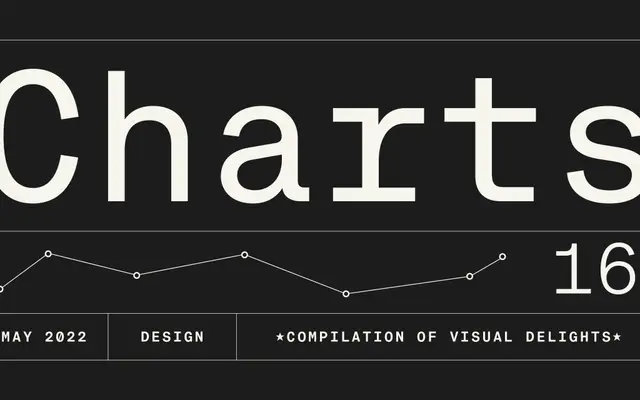
Approach Mono
The fixed-width companion to Approach, a low-contrast monospaced sans with a mechanical quality and more prominent punctuation than its proportional counterpart.
Derived from the Approach family, this monospaced variant retains the original's utilitarian character whilst introducing more visible punctuation suited to tabular layouts and code. Six weights run from Light to Black, covering practical needs across data-heavy documents, programming environments and editorial contexts where a cooler, more clinical voice is wanted. Despite its functional origins, it carries enough personality to work in branding, advertising and print communication beyond purely technical settings.
A fixed-width variant of the Approach sans-serif family, low contrast and mechanically flavoured, designed explicitly for monospaced applications such as code and tabular data.